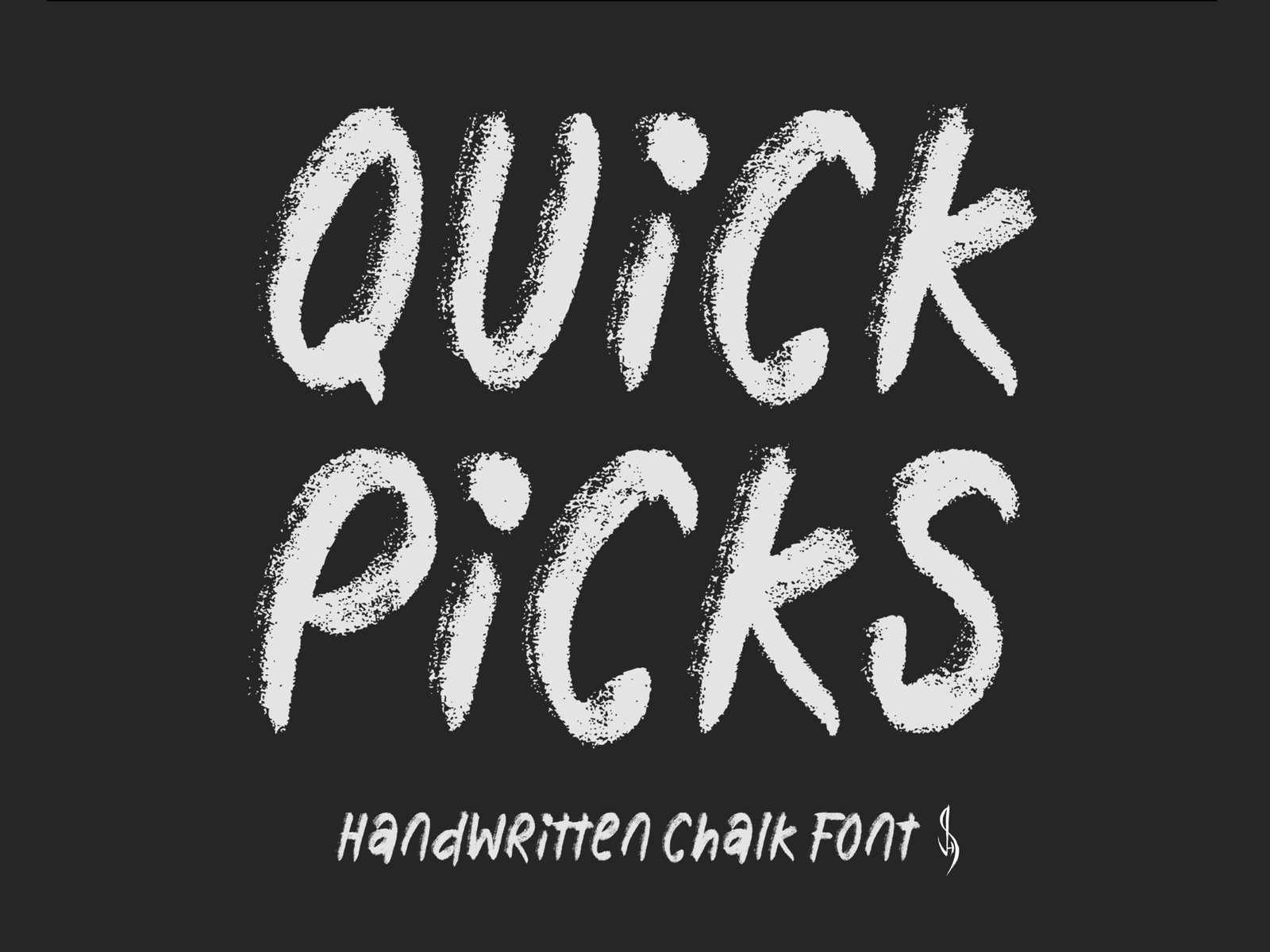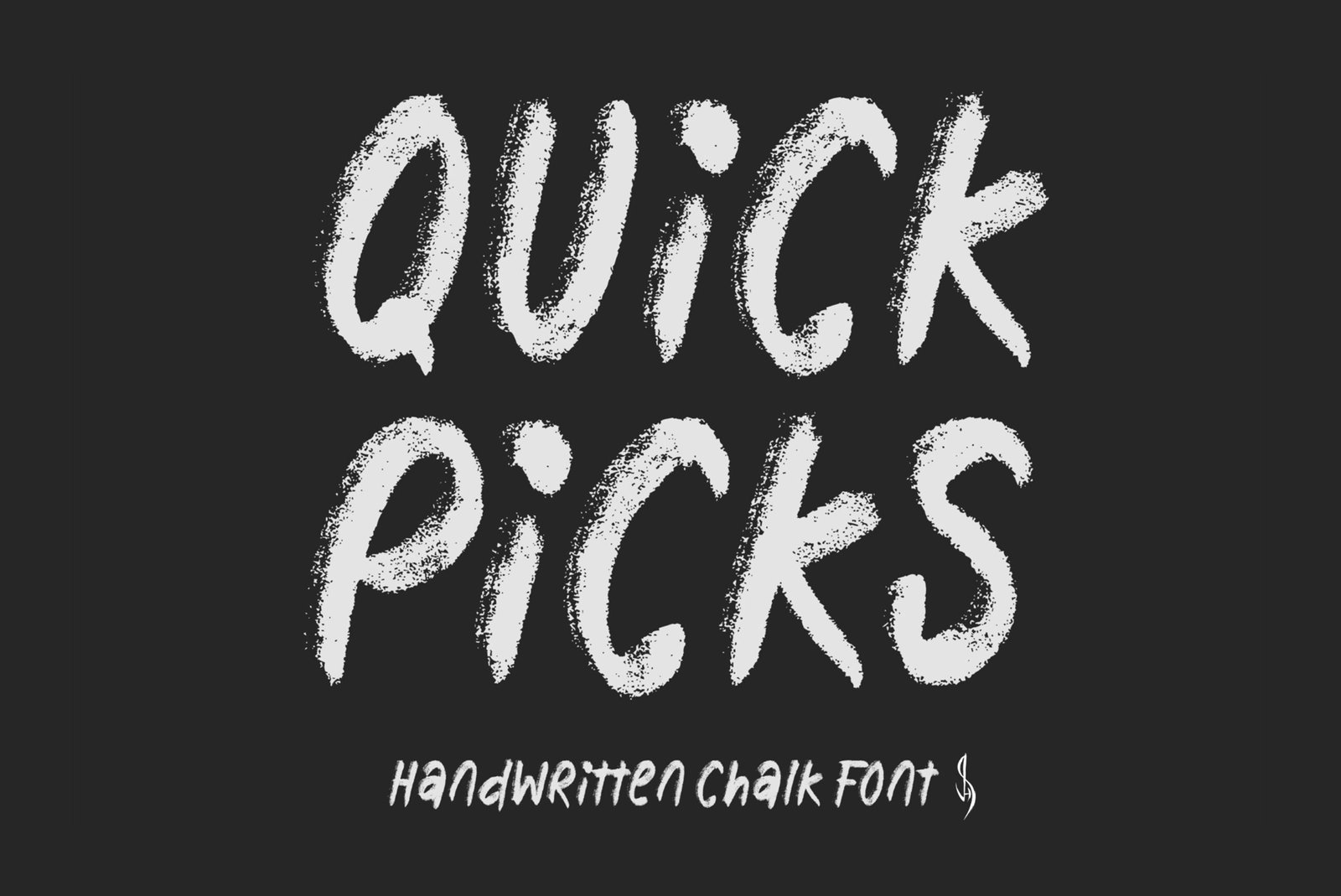
Quick Picks Font
Handwritten chalk font. “Quick Picks”. Perfect for advertising and display purposes, including banners, book covers, shirts, posters, logos and much more!